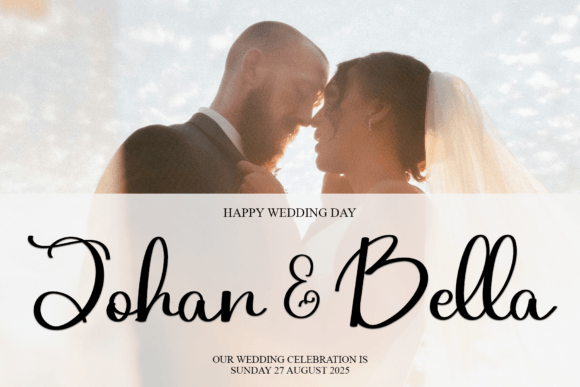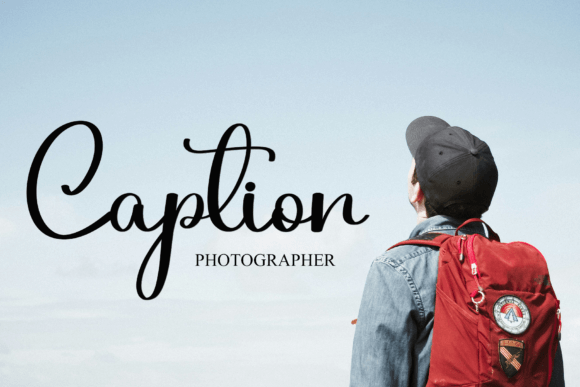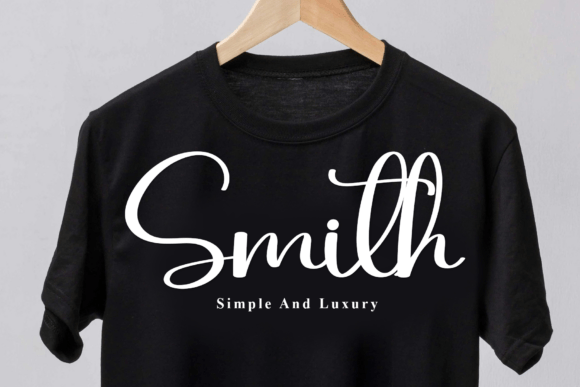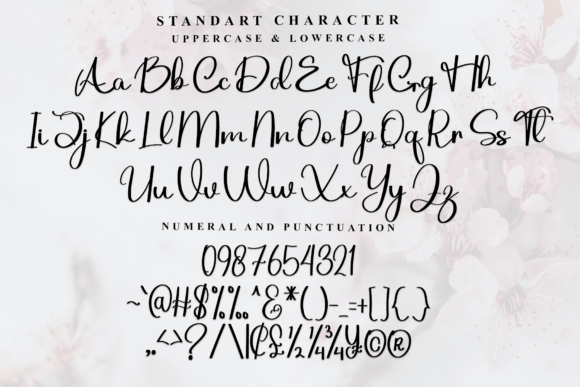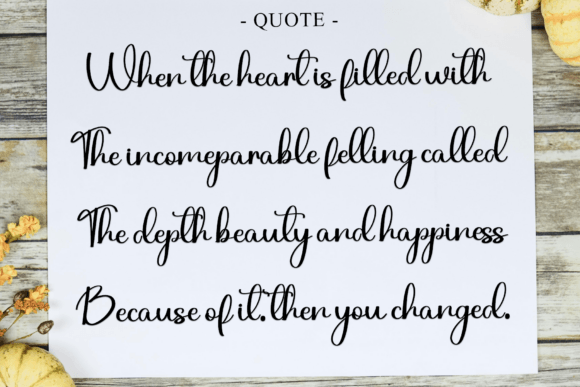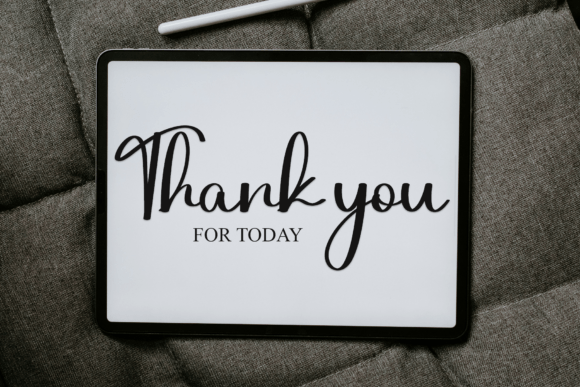
Introduction to Baby Julieta Font
Baby Julieta is a cute and bold handwritten font that looks playful and friendly.
Its charming style makes it perfect for adding a warm and personal touch to cards, invitations, and other creative projects .
Key Features of Baby Julieta Font
Why Choose Baby Julieta Font?